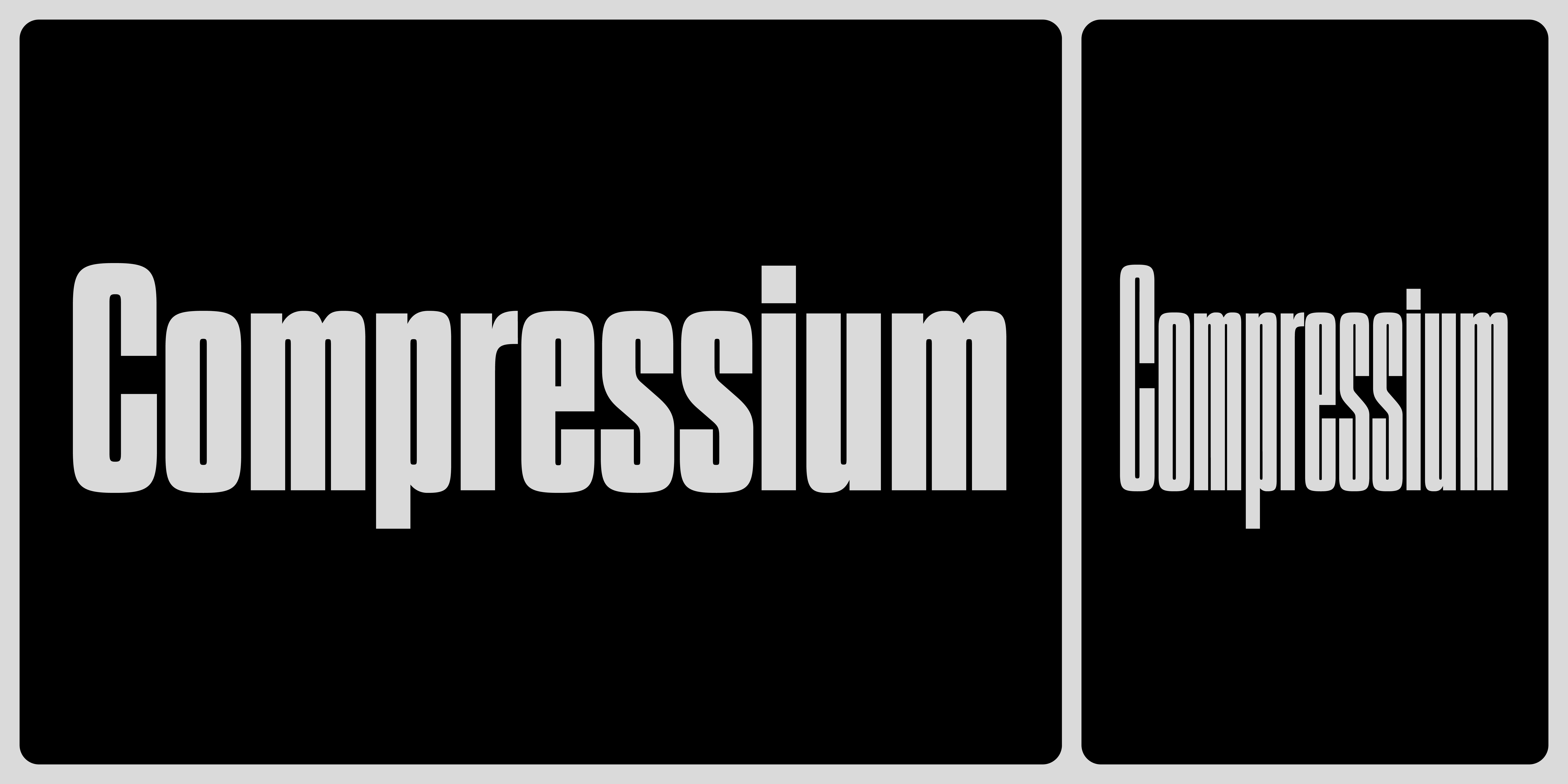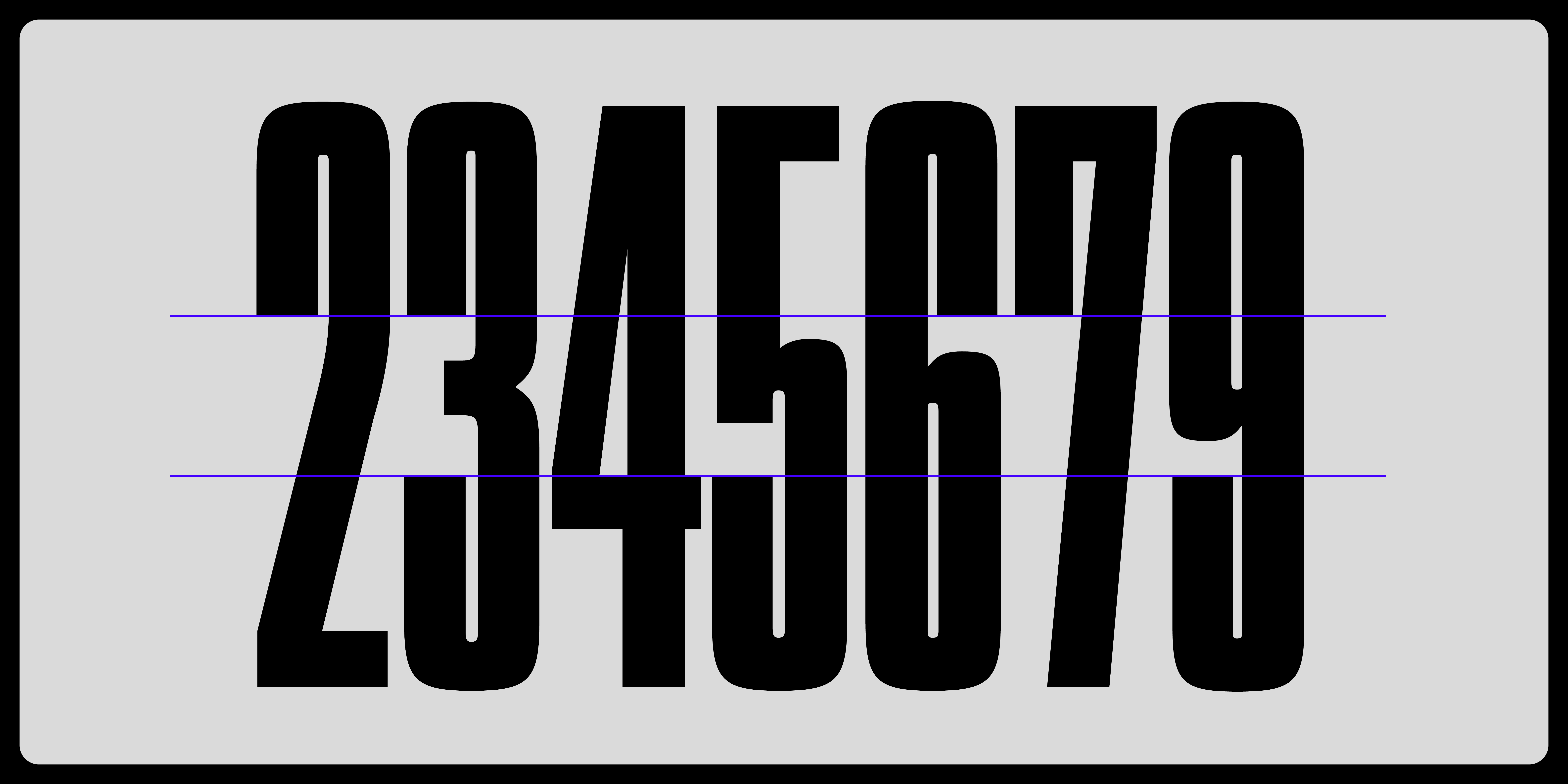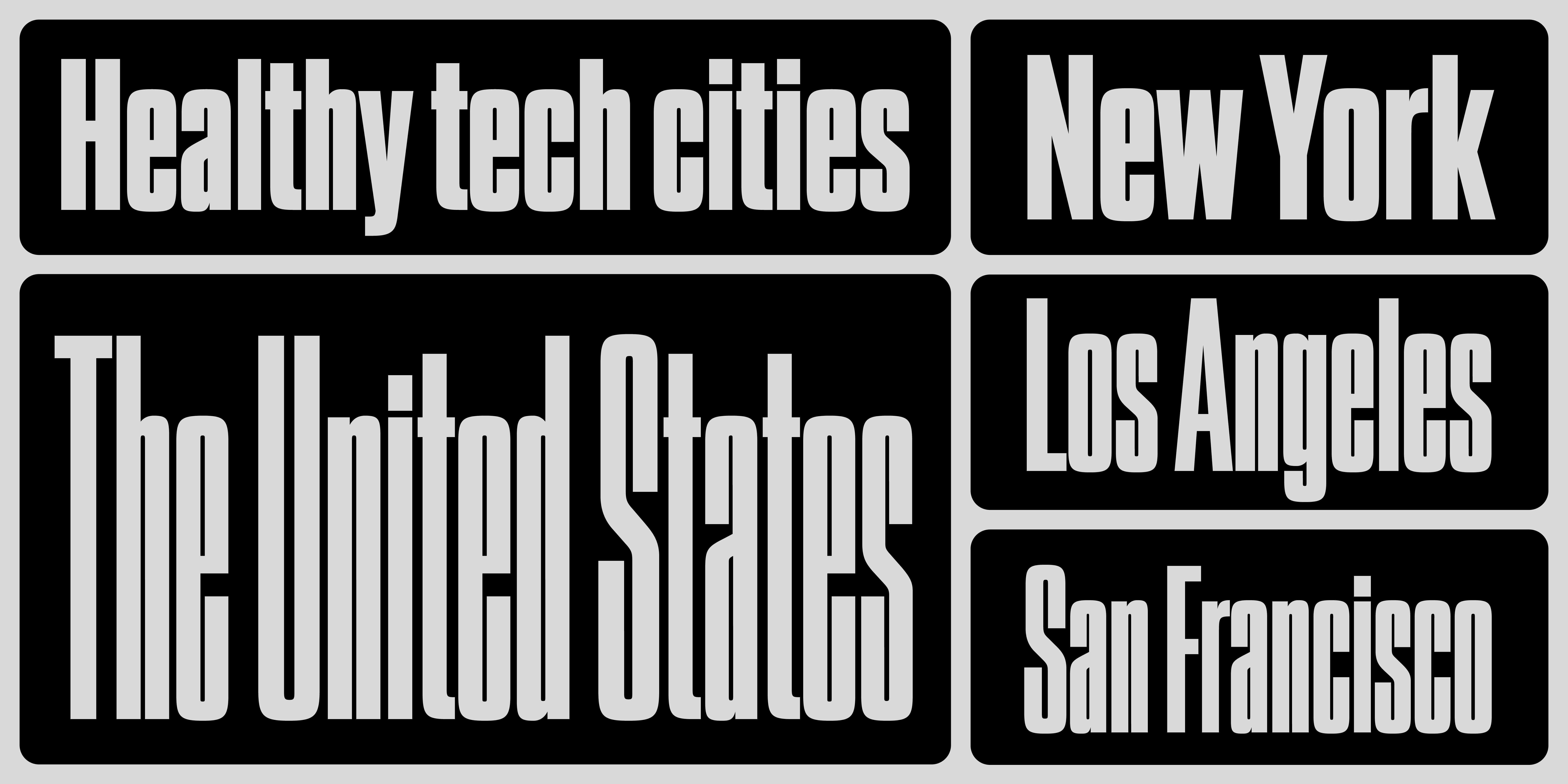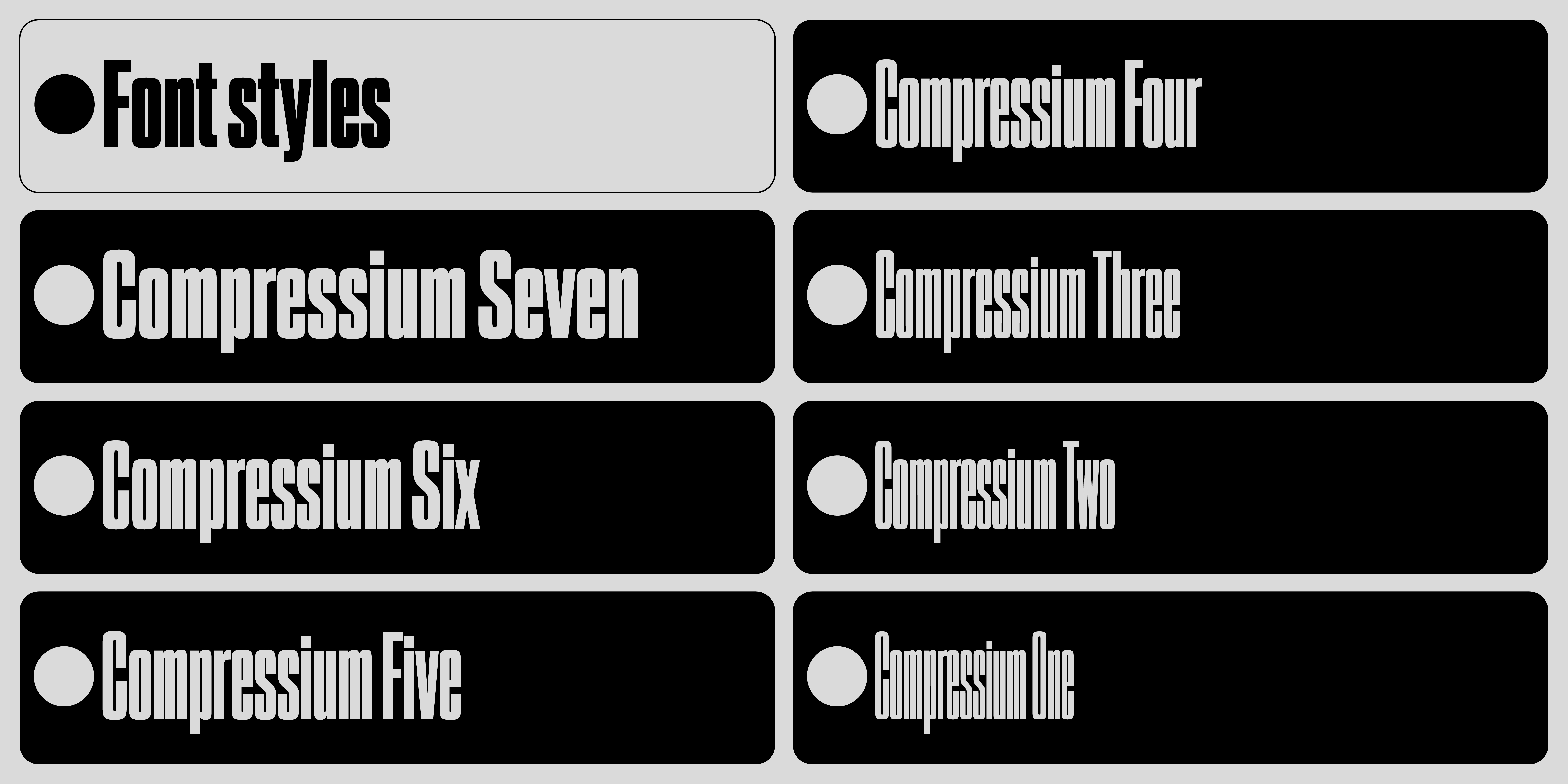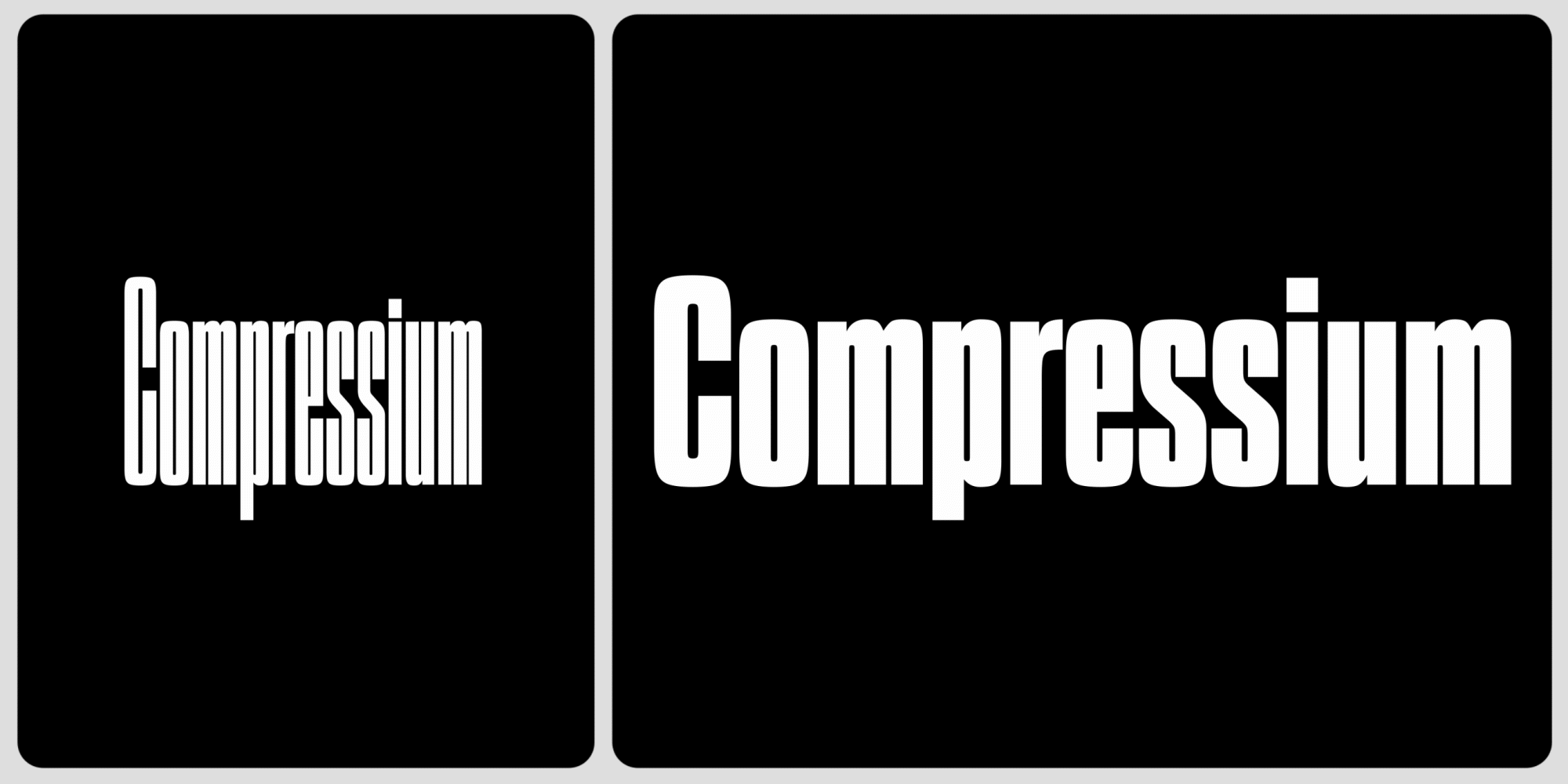
Compressium evolved from the family’s most distinctive weight, the Seven. This style was first scaled vertically and then rescaled to match its original height, making it more condensed. Its squared curves reinforce the compact rhythm by tightening the white space. As its name suggests, Compressium embodies this transformation: a series of seven ultra-condensed and powerful styles created to make a strong visual impact.